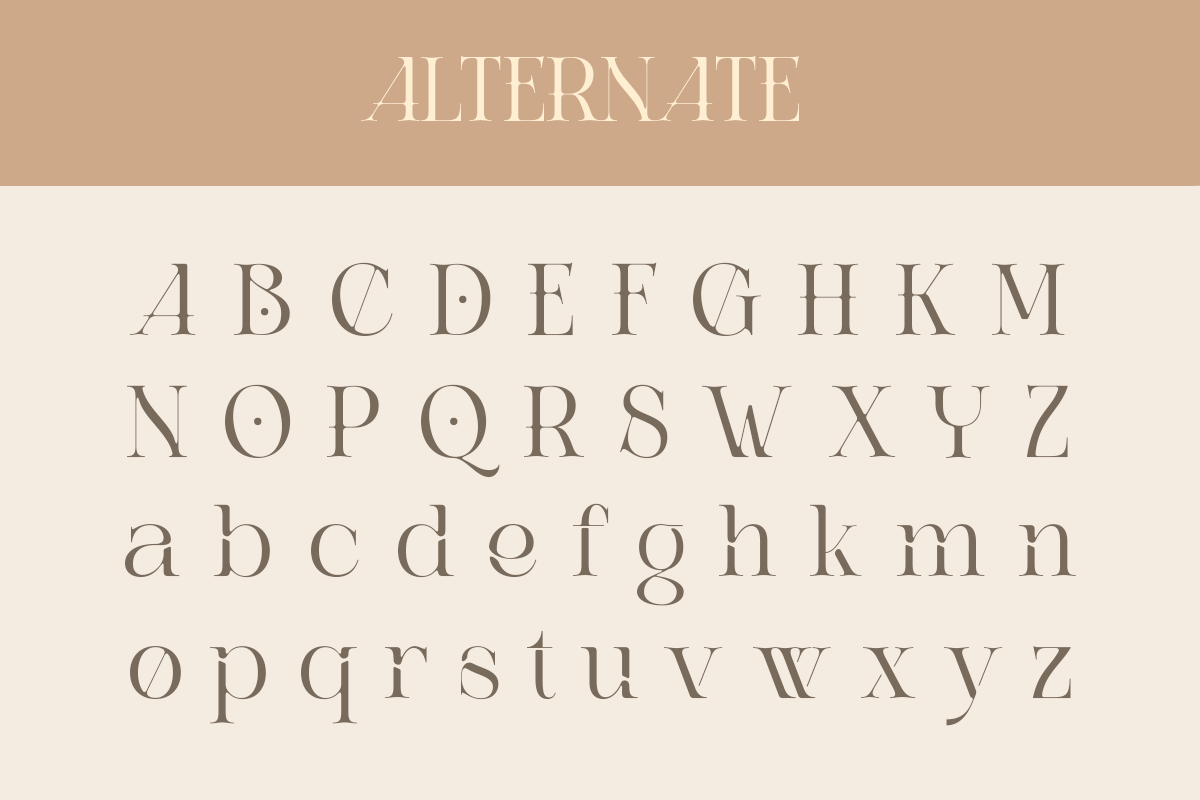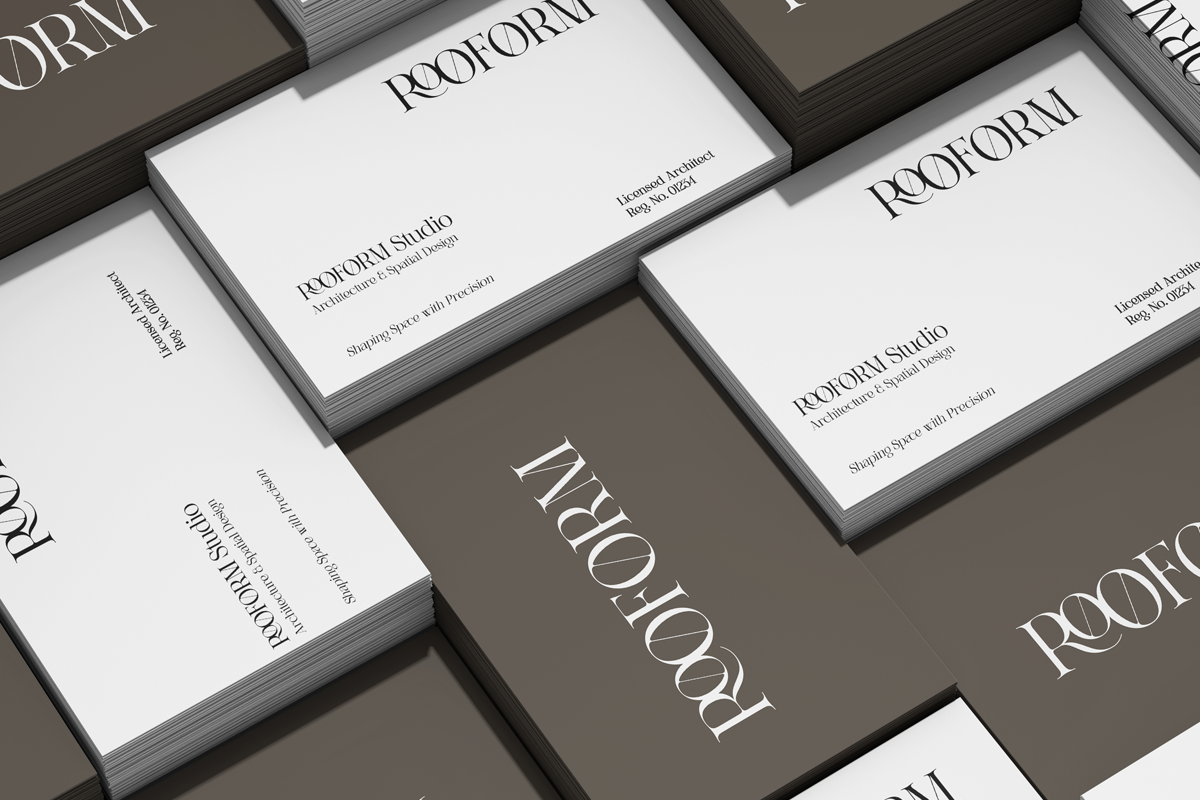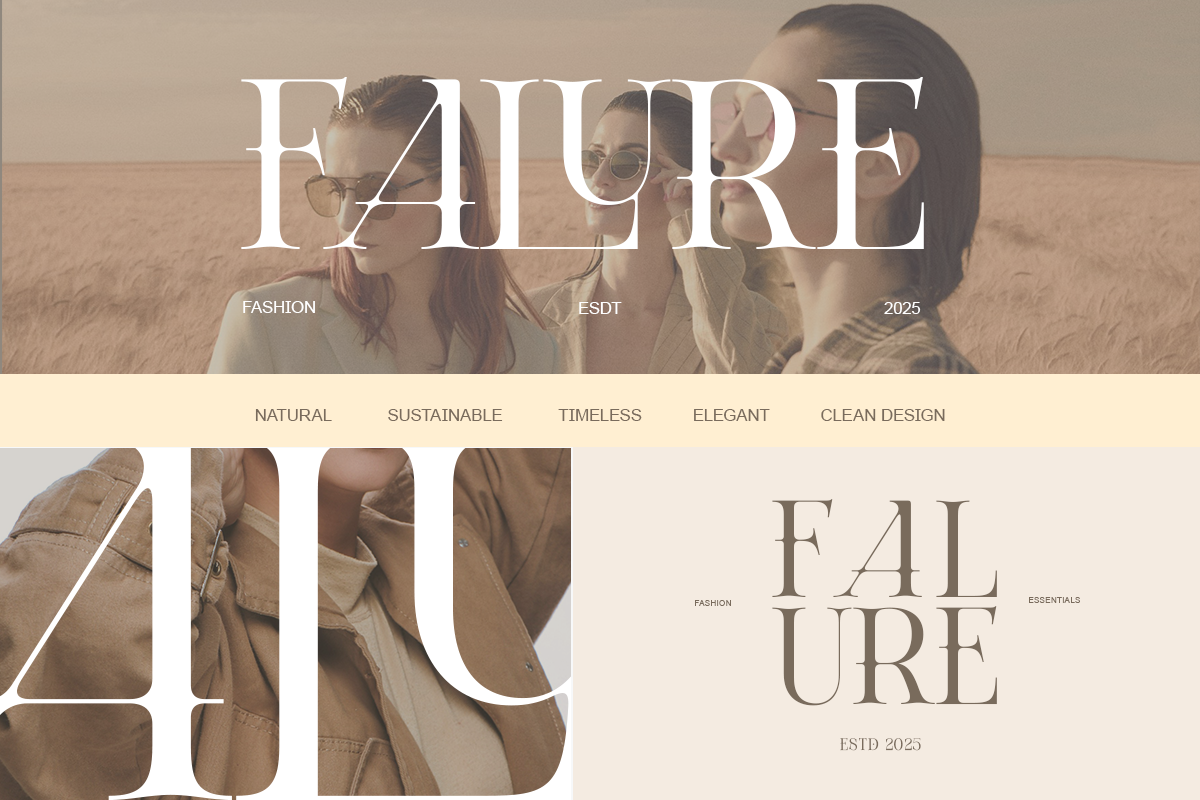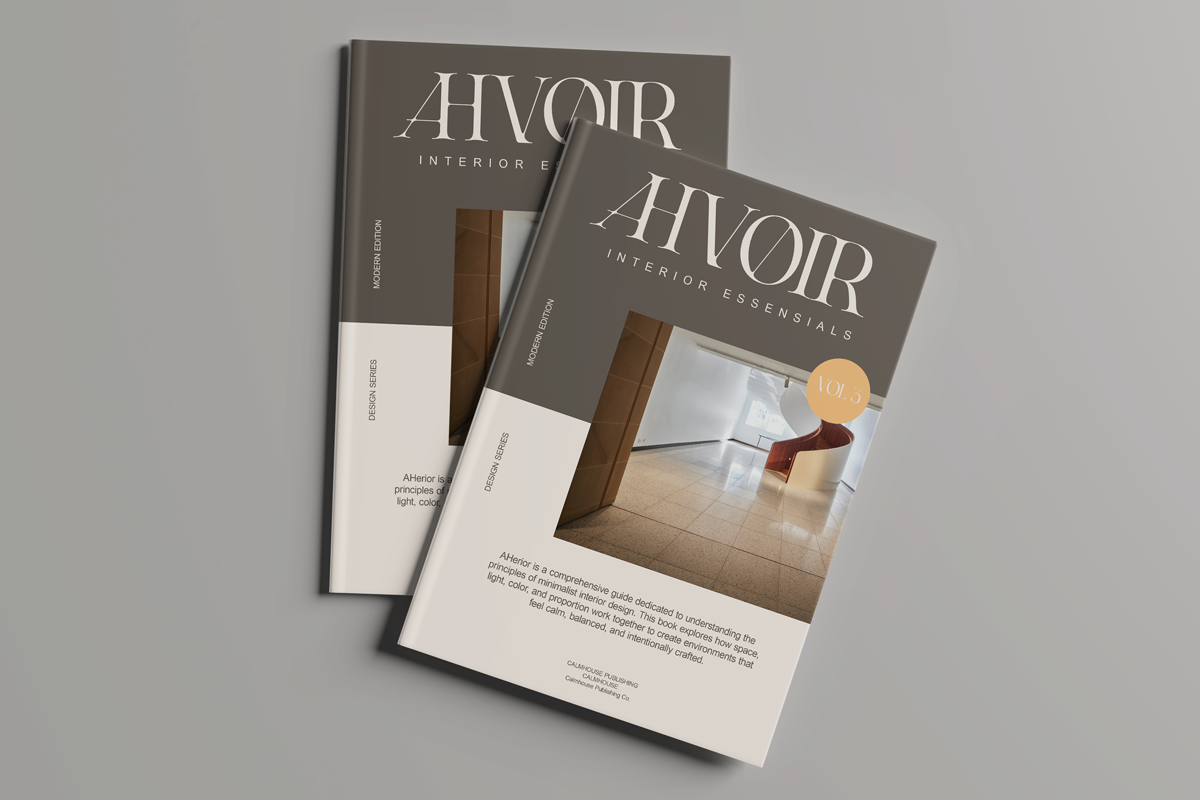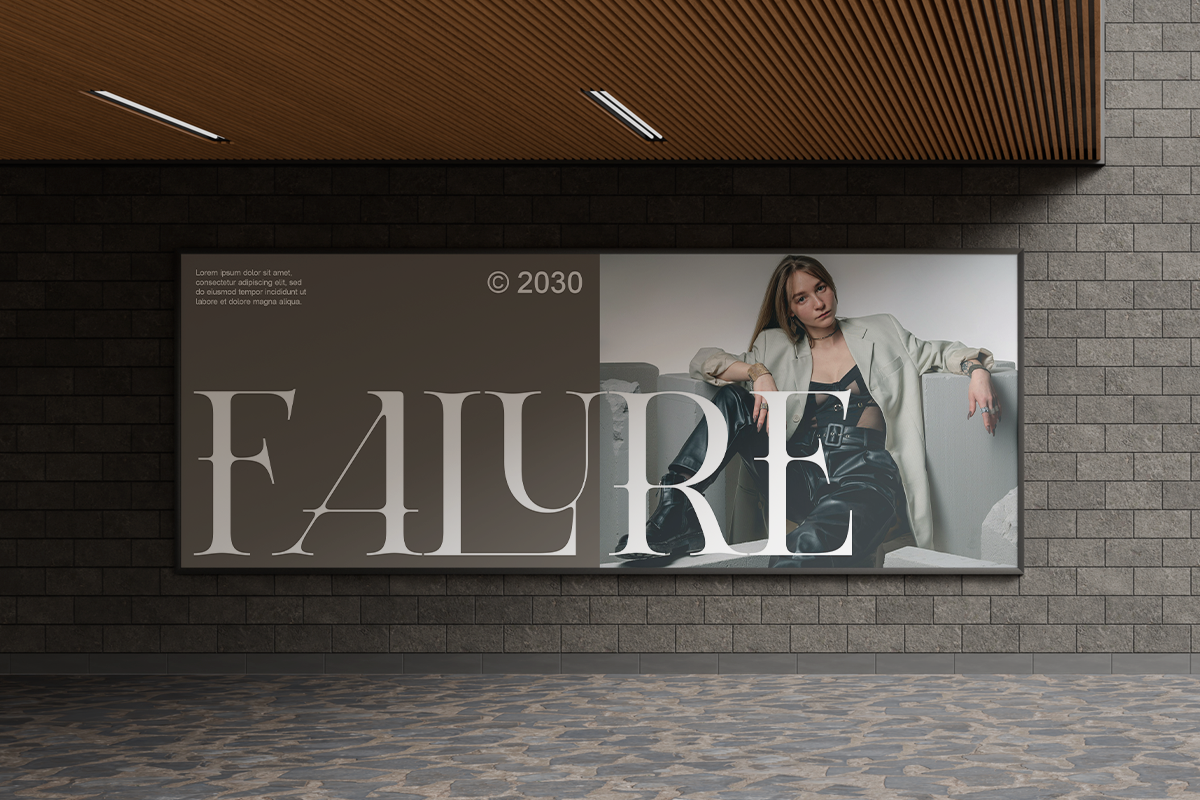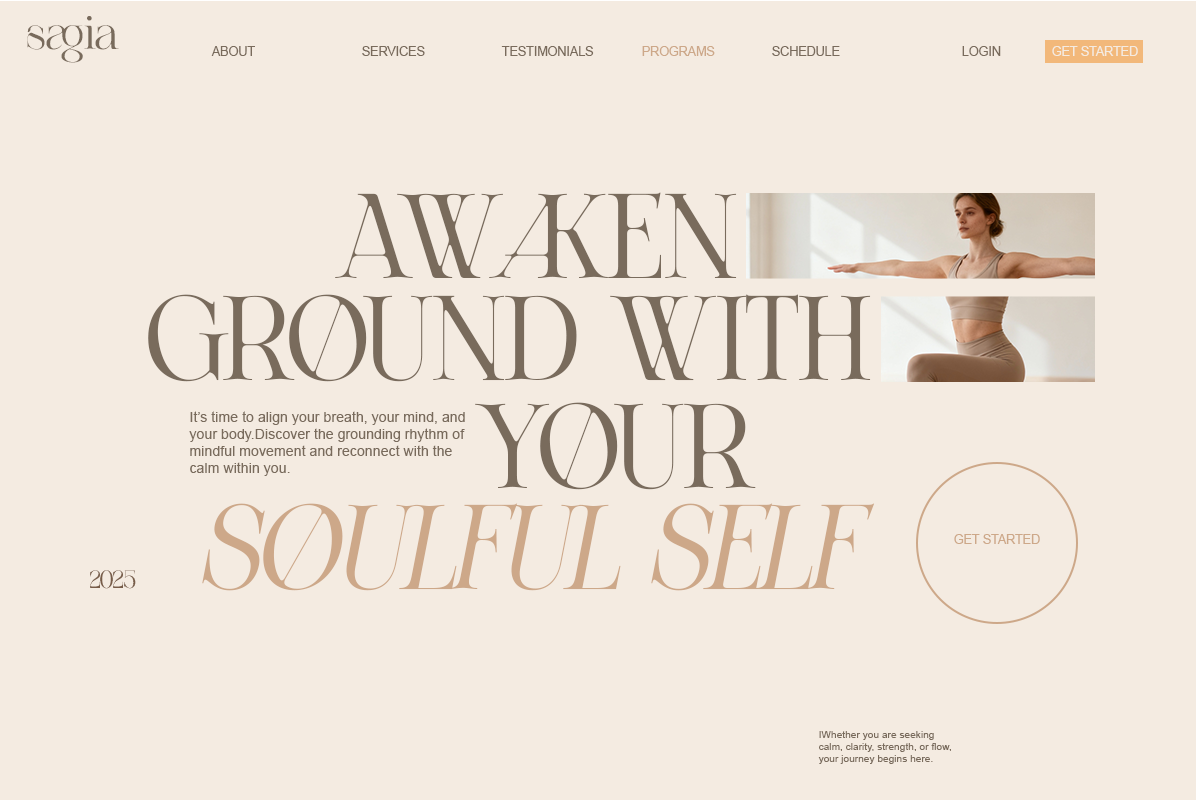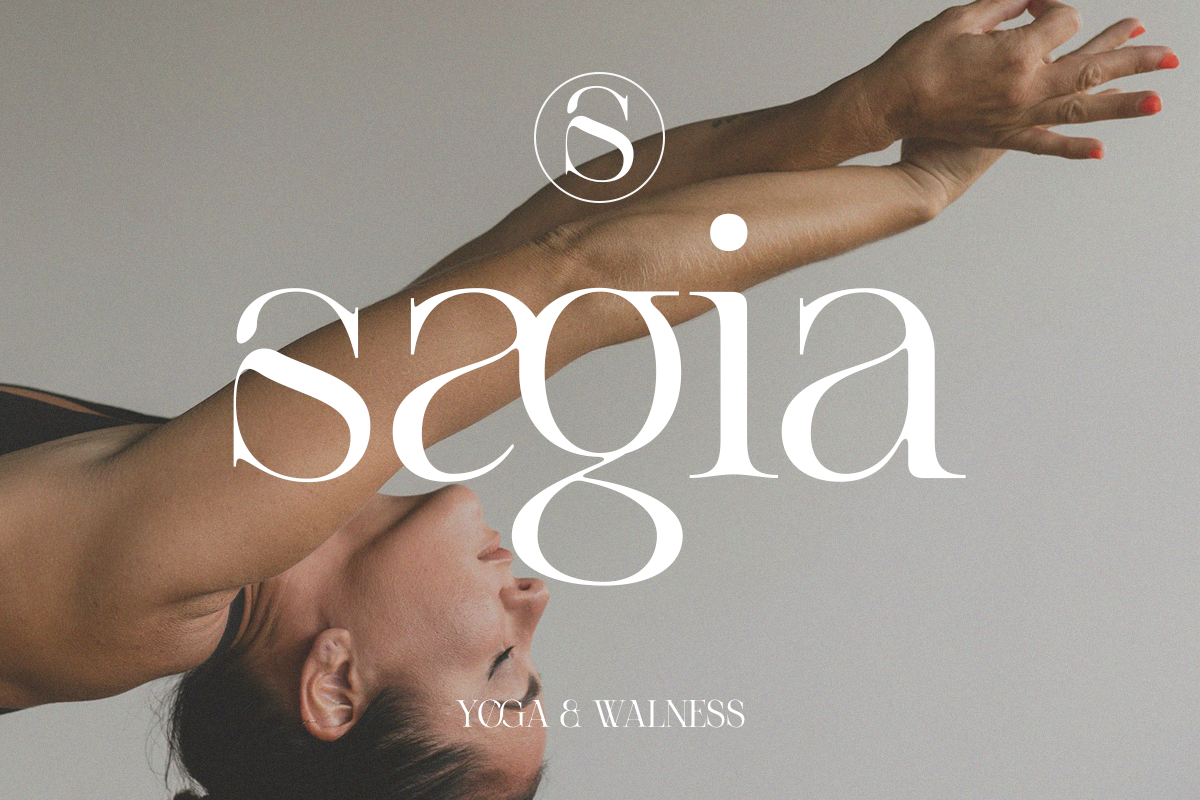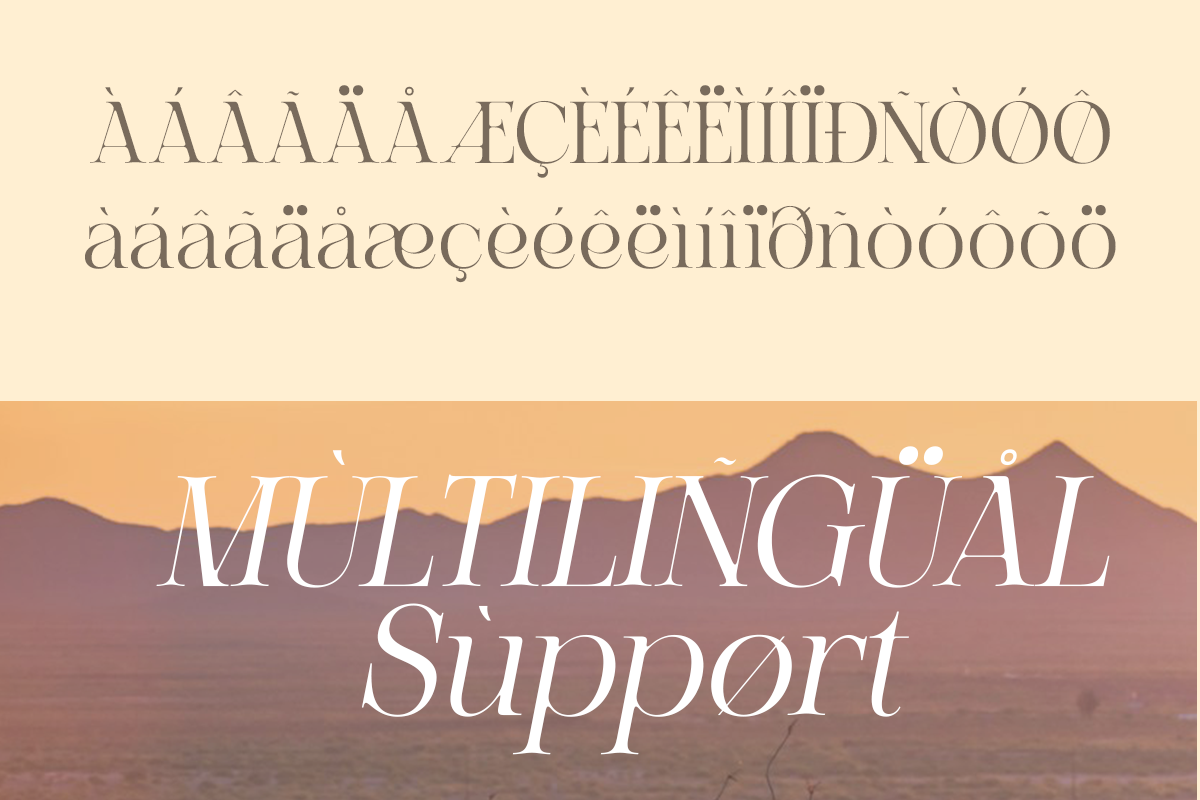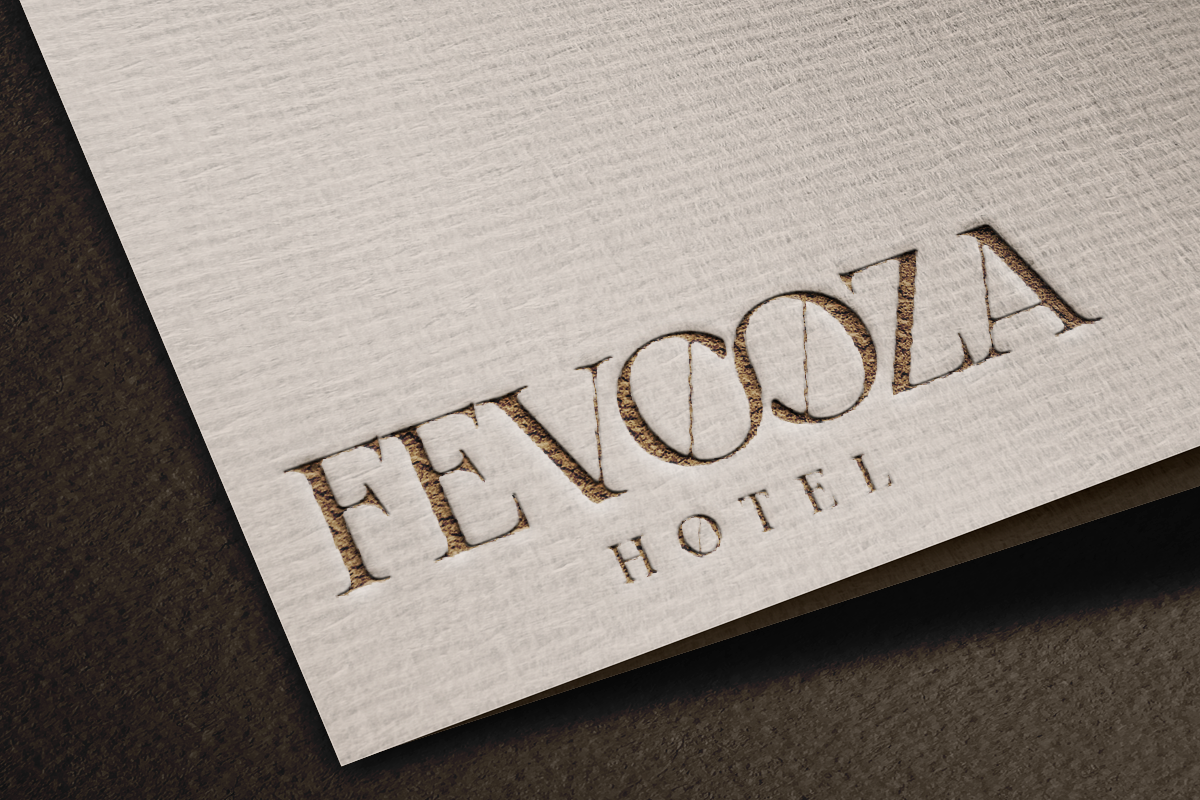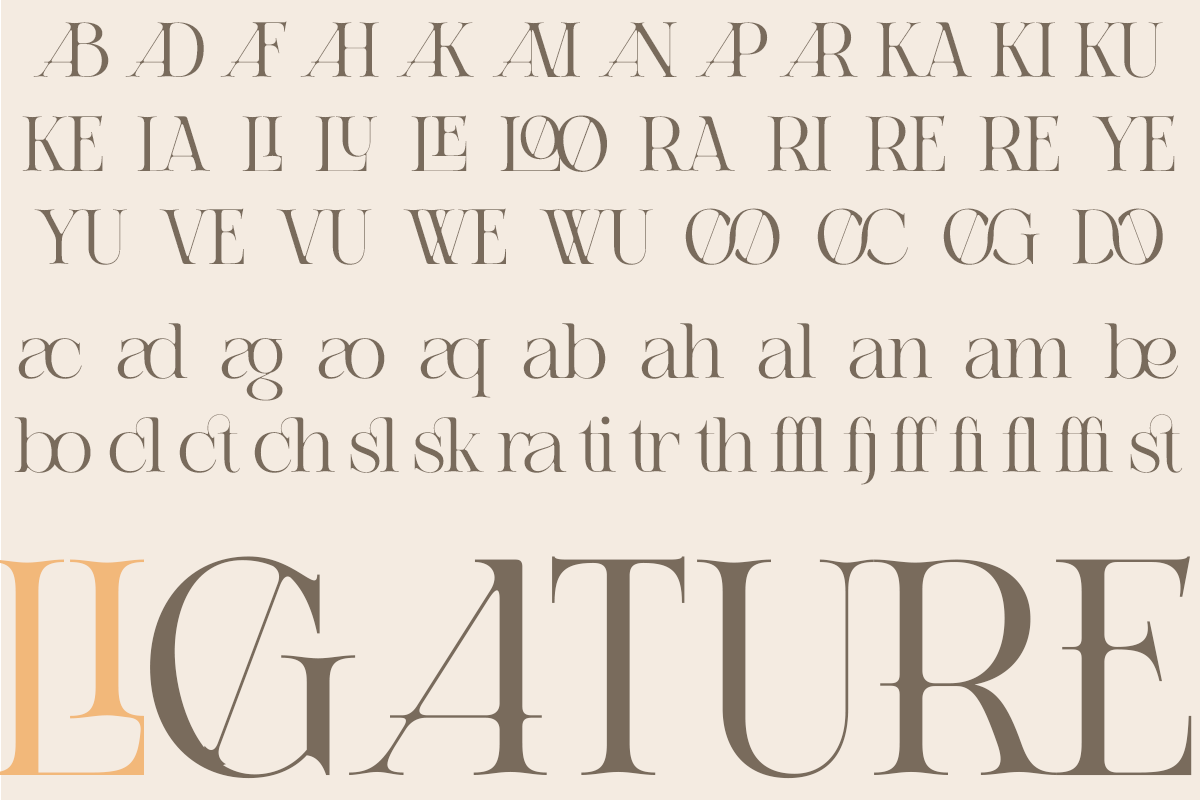
A Refined Luxury Serif - Relooyd
Meet Relooyd, a modern serif typeface built for designers who appreciate structure and subtle luxury.
With its high contrast strokes and elegant ligature details, Relooyd brings calm sophistication into every composition. Perfect for fashion branding, luxury packaging, wedding editorials, and premium logo design.
Its clean geometry and balanced rhythm create a confident yet graceful typographic voice — timeless, modern, and beautifully refined.
- Alternates & ligatures
- Regular & Italic
- High-contrast strokes
Luxury logos, boutique branding, fashion editorials, magazine covers, beauty packaging, wedding stationery.